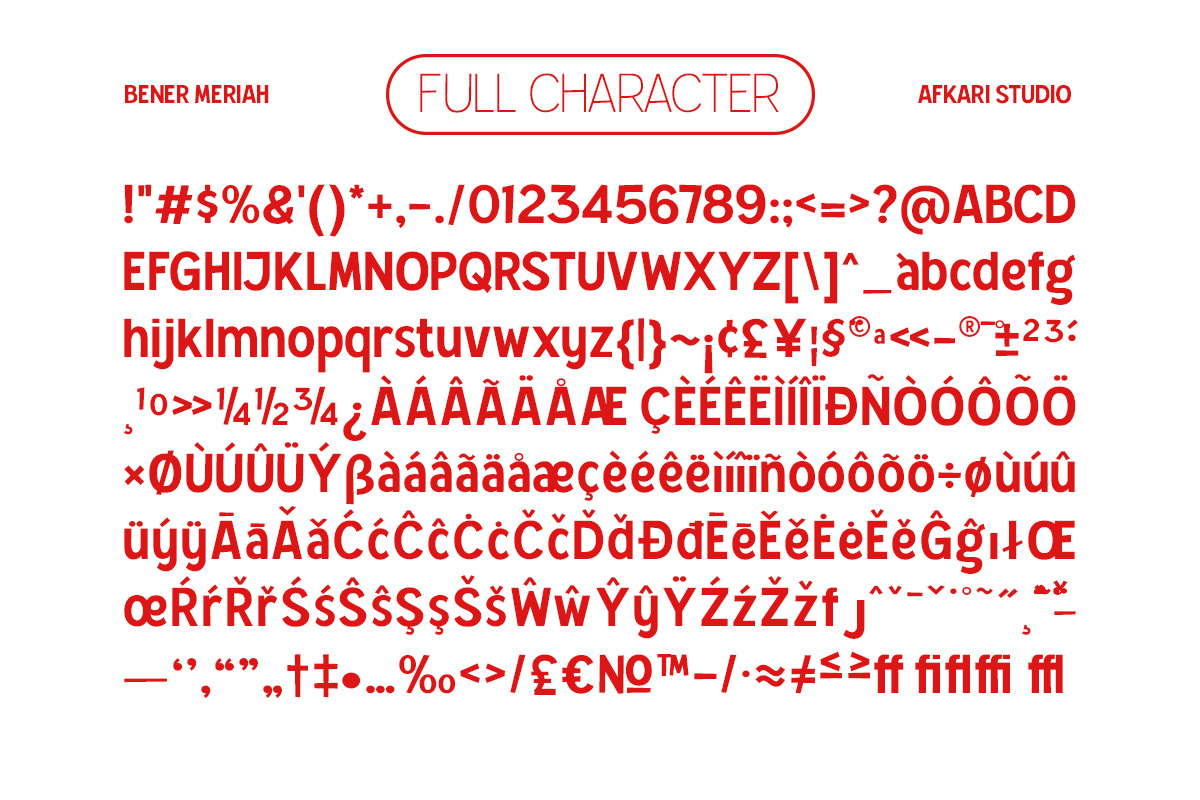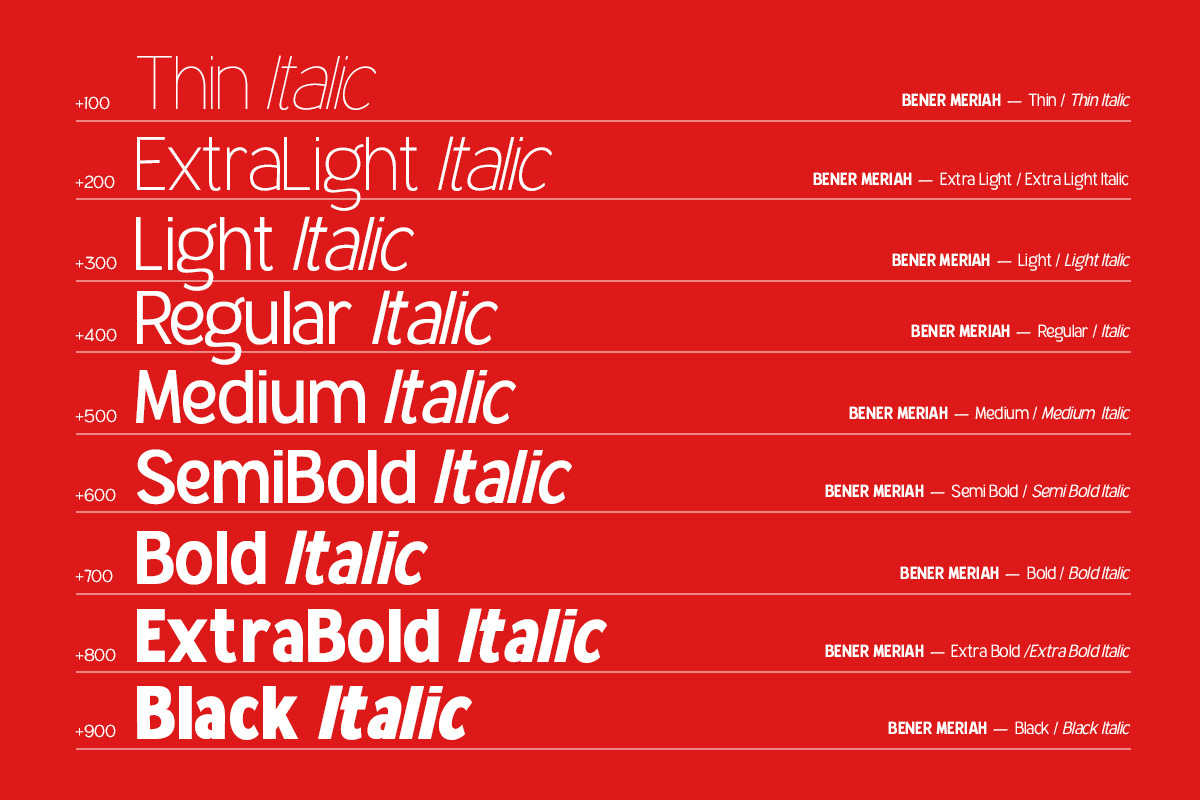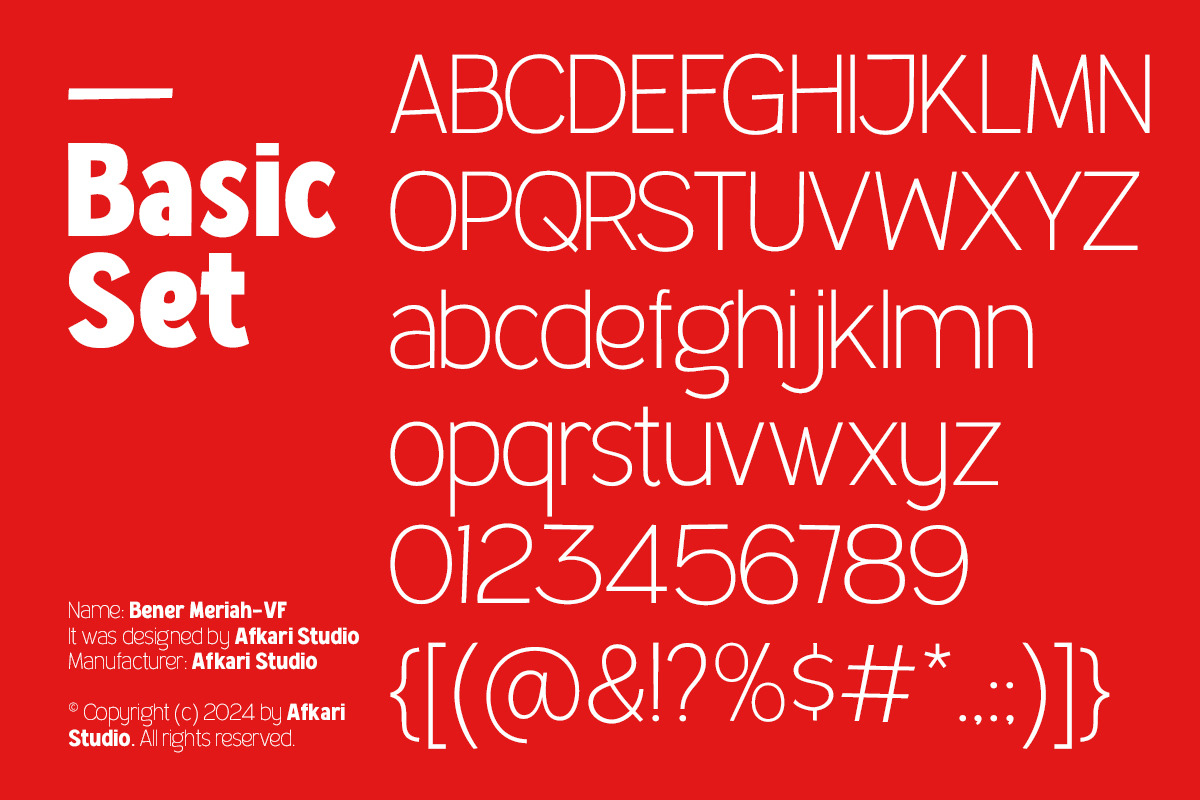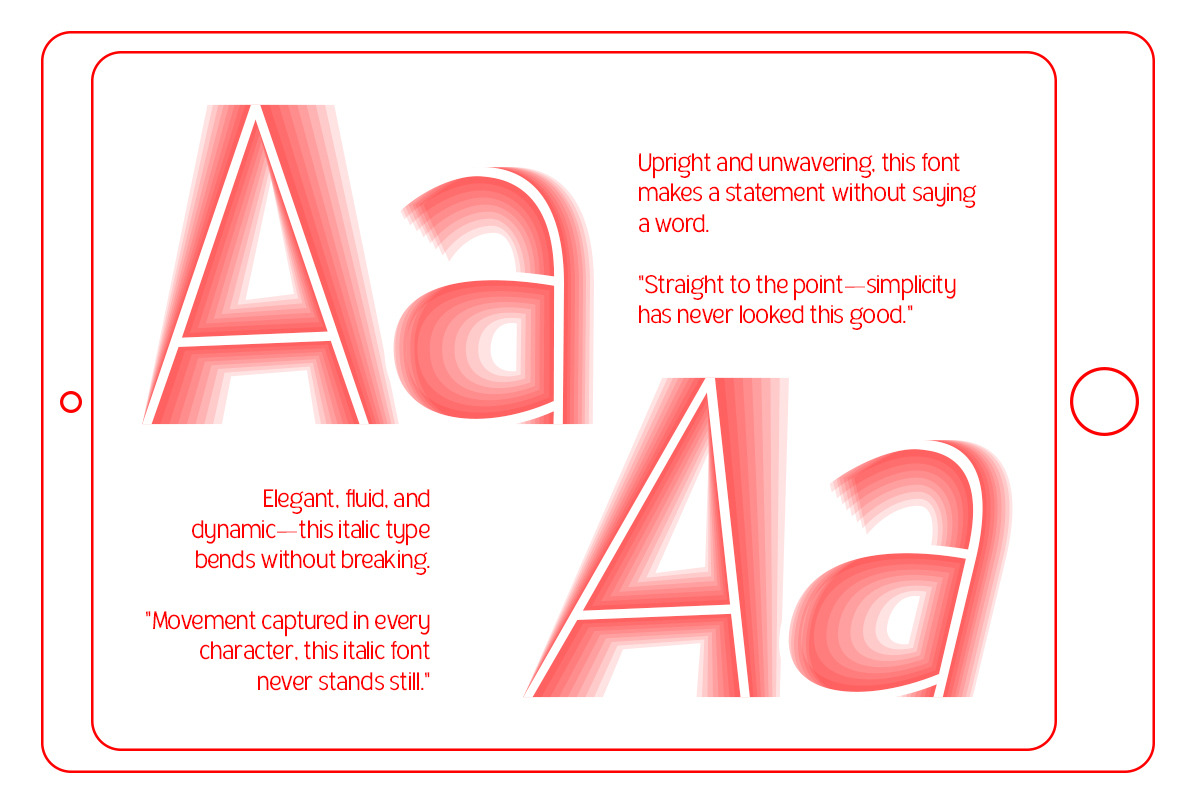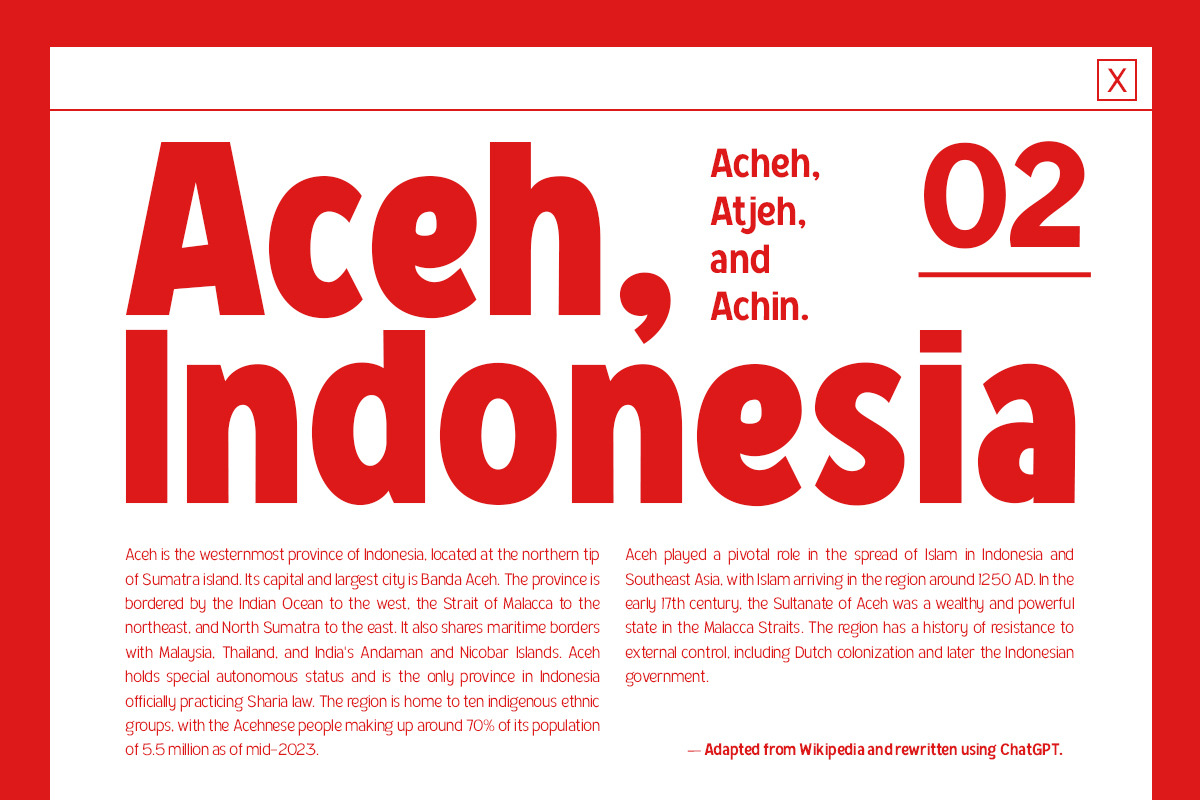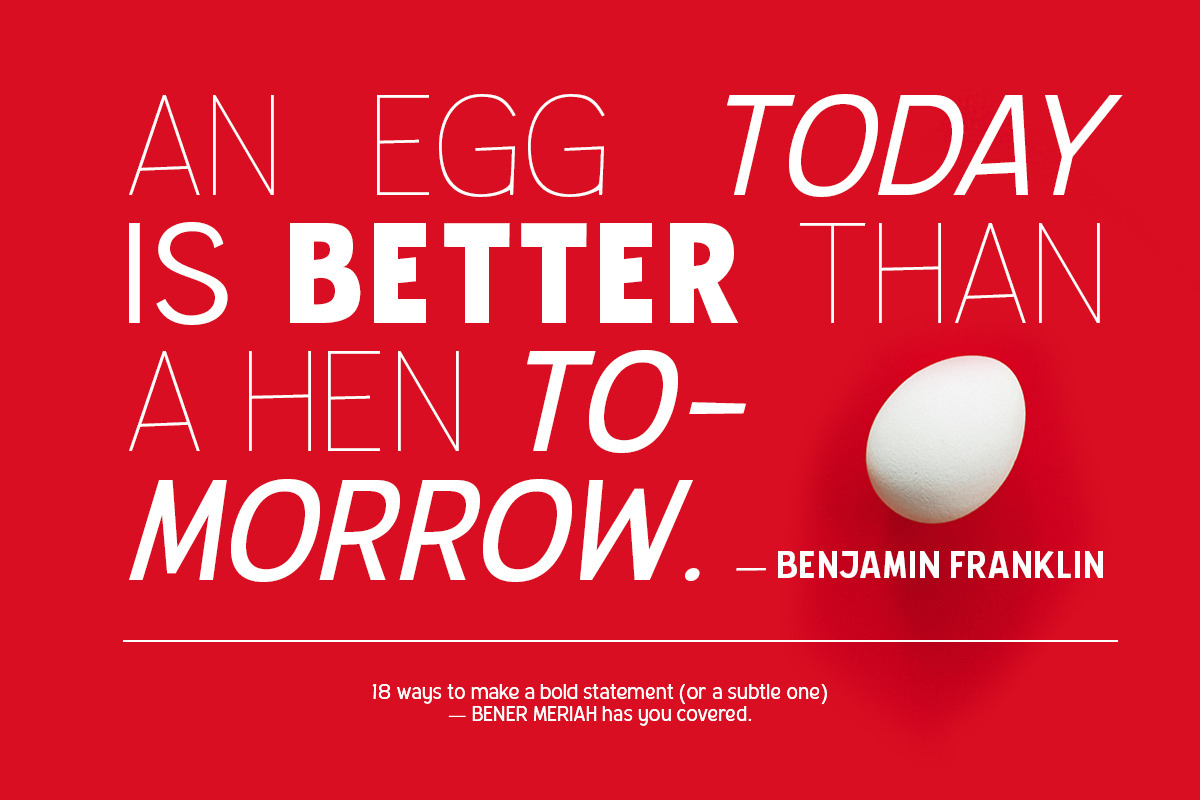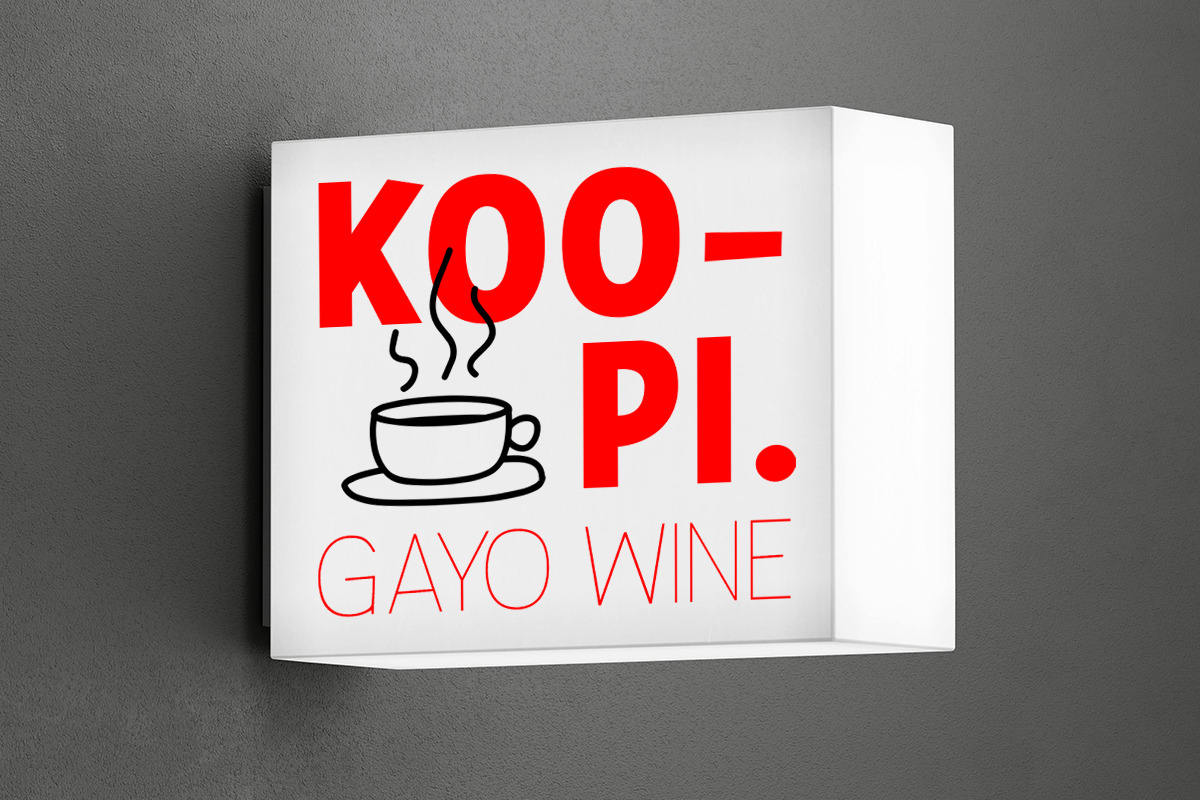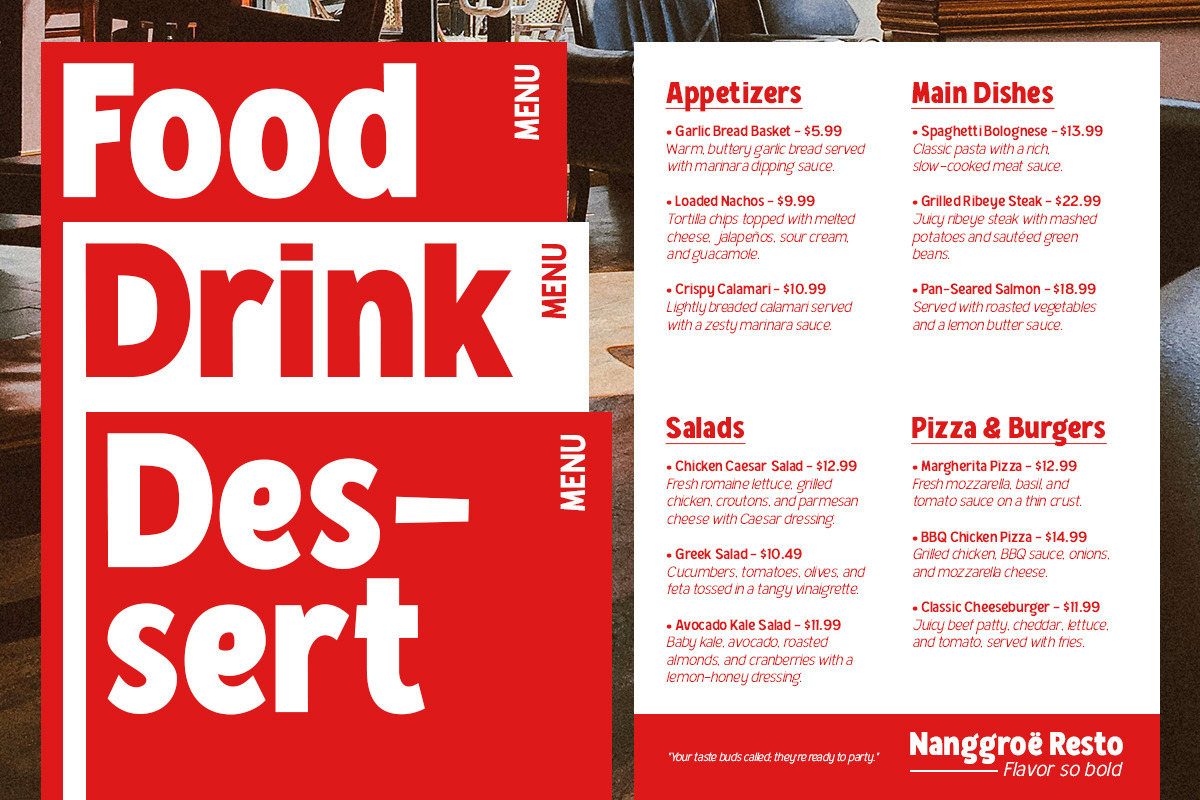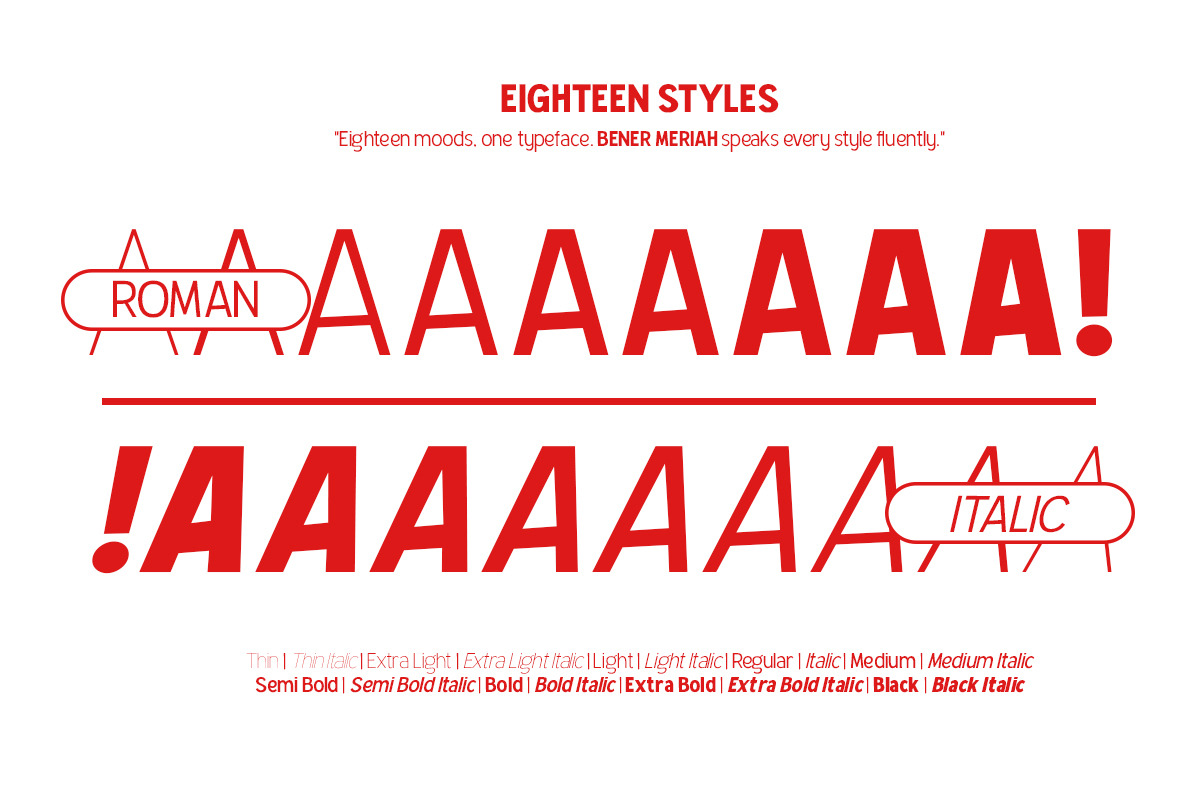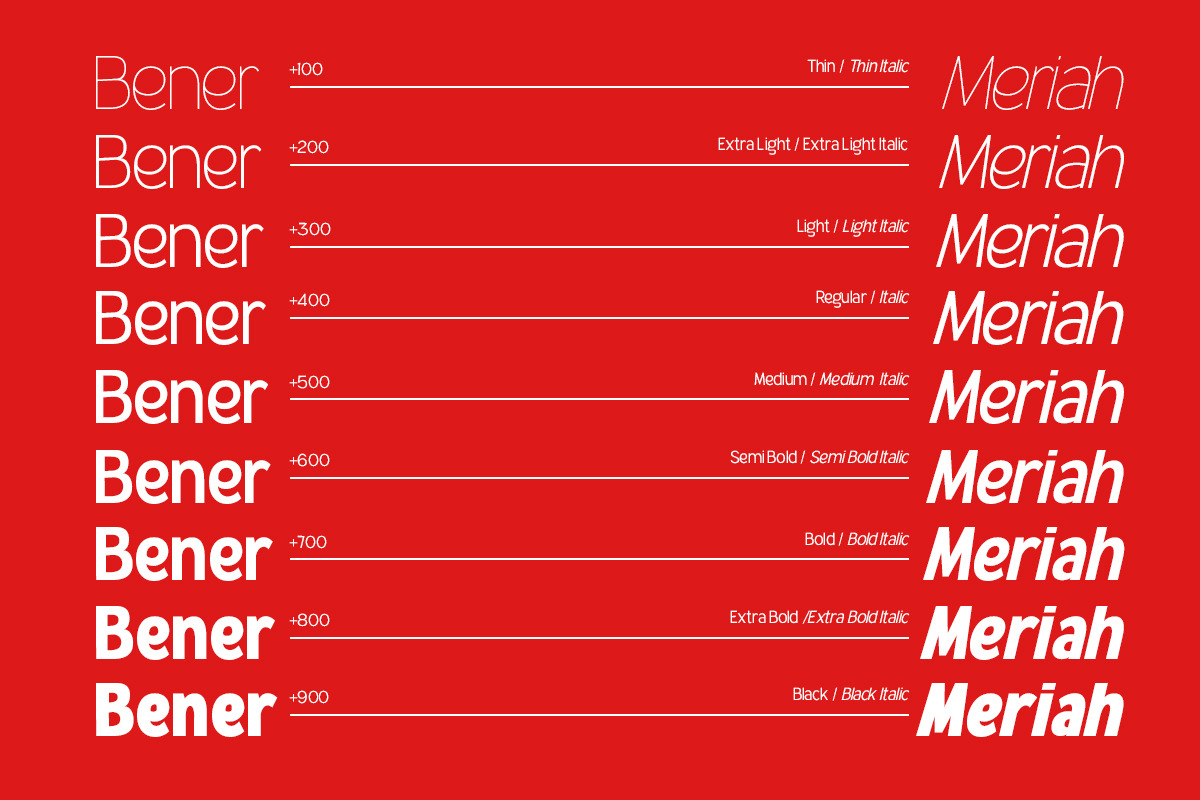
Bener Meriah - Sans Serif Family
Bener Meriah is a sophisticated and highly versatile sans-serif font family meticulously crafted for designers who demand both elegance and functionality. This typeface offers an impressive range of 18 weights, from the delicate and airy Thin to the commanding and bold Black, with matching Italics for each weight. The result is a comprehensive toolkit that meets the needs of modern design projects across a variety of styles and applications.
Bener Meriah is designed to be a true workhorse, capable of adapting to any creative endeavor. Its clean, sans-serif lines ensure it excels in applications where readability is essential, whether in large-format displays or intricate editorial layouts. This font family bridges the gap between classic and contemporary styles, making it a reliable choice for branding, advertising, packaging, and beyond.
Each weight of Bener Meriah has been carefully adjusted for optimal balance, ensuring that even the thinnest and boldest options maintain visual harmony. The addition of matching italics further expands the font’s versatility, allowing designers to add emphasis and variety without sacrificing cohesion.
Wide Range of Weights Bener Meriah includes 18 weights, from Thin to Black, with matching Italics for every weight. This gives you the flexibility to create bold headlines, clear body text, and everything in between.
Clean and Modern Design With its sleek, minimalist style, Bener Meriah works well for both professional and creative projects, fitting seamlessly into today’s design trends.
Versatile for Any Size Whether you’re designing large banners or small paragraphs, this font family ensures excellent readability and impact, making it suitable for both digital and print media.
Matching Italics Each weight comes with an italic version, allowing you to add emphasis or create a more dynamic look while keeping a consistent style.
Perfect for Various Projects From branding and advertising to web design and packaging, Bener Meriah’s clean and adaptable style makes it an excellent choice for a wide range of applications.
Mültîlíñgúãl Sùppört Bener Meriah includes multilingual support for special characters like ä, ö, ü, Ä, Ö, Ü, ß, ¿, ¡, ensuring it can adapt to a global audience and enhance international designs.